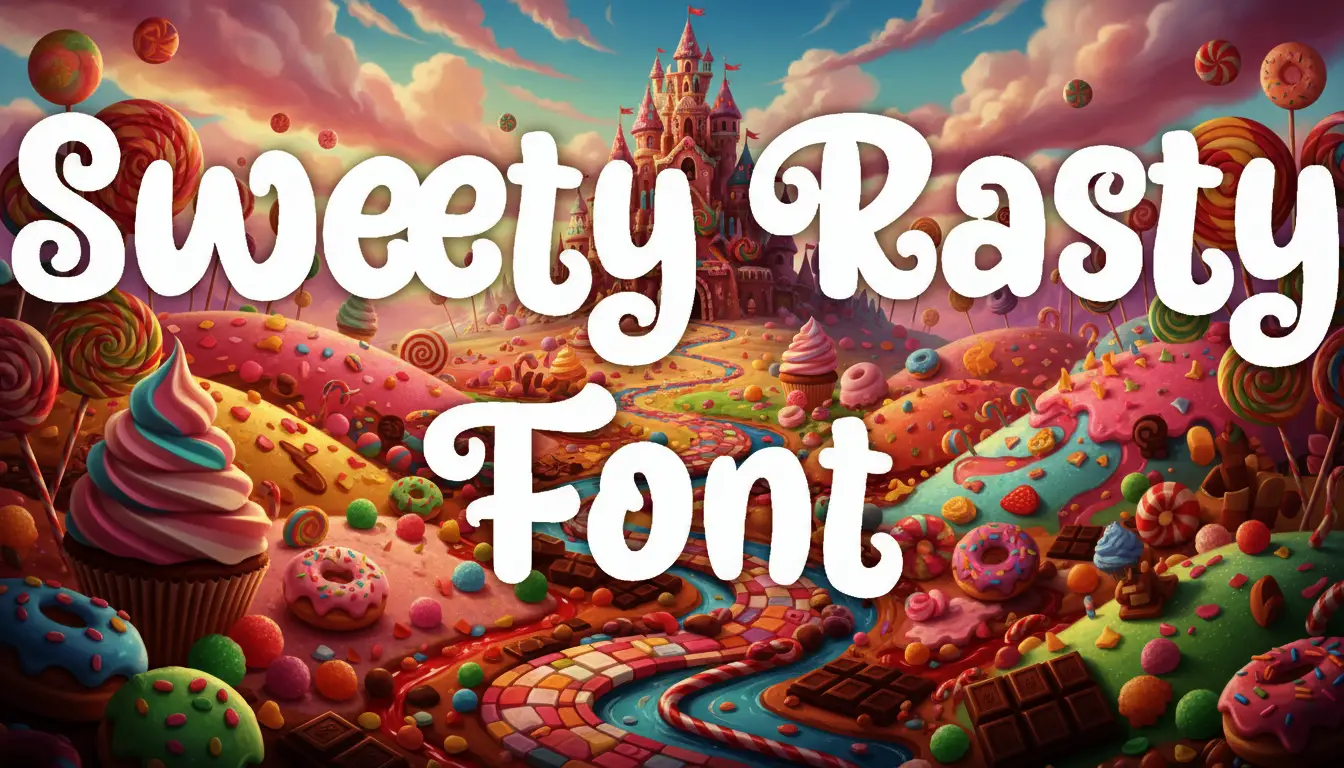
Sweety Rasty Font
Sweety Rasty
Sweety Rasty is a fancy font made by Holydie Sudio ( Yugo Priyat Moko ). It's a decorative display font with plenty of personality, made to grab attention. It's a free download, and you can try it with your own text in the preview above first.
- Characters: A–Z, a–z and basic punctuation
What You Can Type With Sweety Rasty
Sweety Rasty has the full alphabet in upper and lowercase. There are no numbers, so you'll need a second font for dates, prices or phone numbers. Everyday marks like ! and ? are there too. There are no accented letters like é or ñ, so it's best kept to English text.
Where Sweety Rasty Works Best
Designers usually reach for fonts like Sweety Rasty when they're making posters, logos and eye-catching headlines. Use it for one standout word or headline and let simpler fonts handle the rest.
Does Sweety Rasty support accented letters?
No. Sweety Rasty has no accented letters such as é, ñ or ü, so it's best for English text.